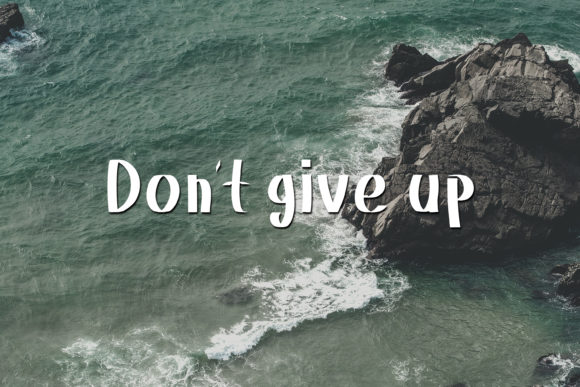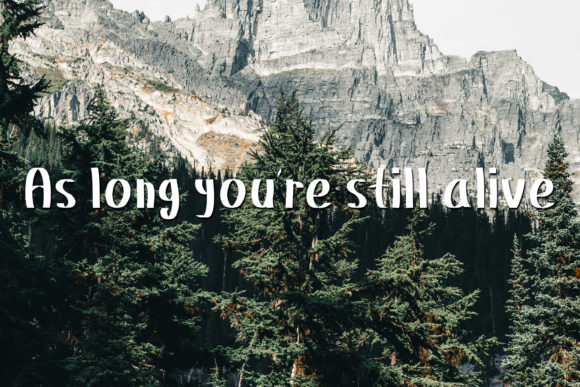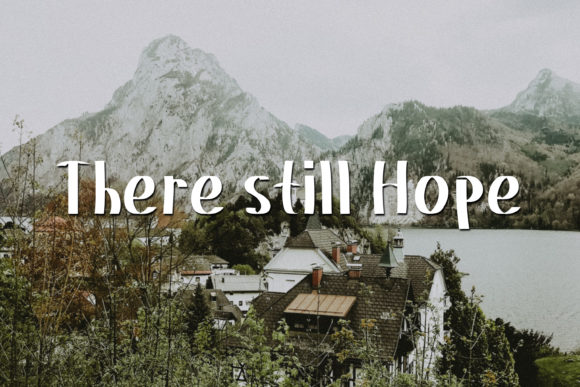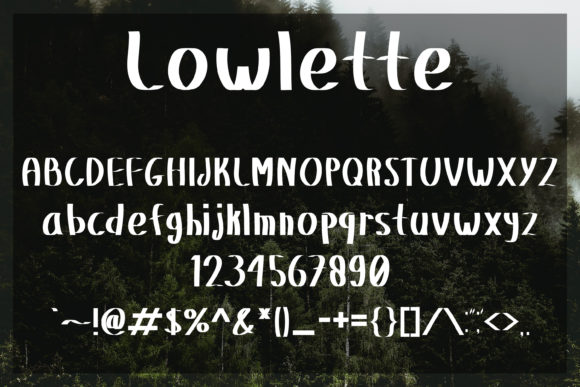
Introduction to Lowlette Font
Lowlette is a cool and friendly display font.
This adaptable font will look great on a variety of design ideas It will add a fun and friendly touch to each of your projects.
Lowlette Font offers exceptional quality and versatility, making it a valuable addition to your design toolkit. Whether you’re creating for personal projects or commercial use, Lowlette Font delivers professional results.